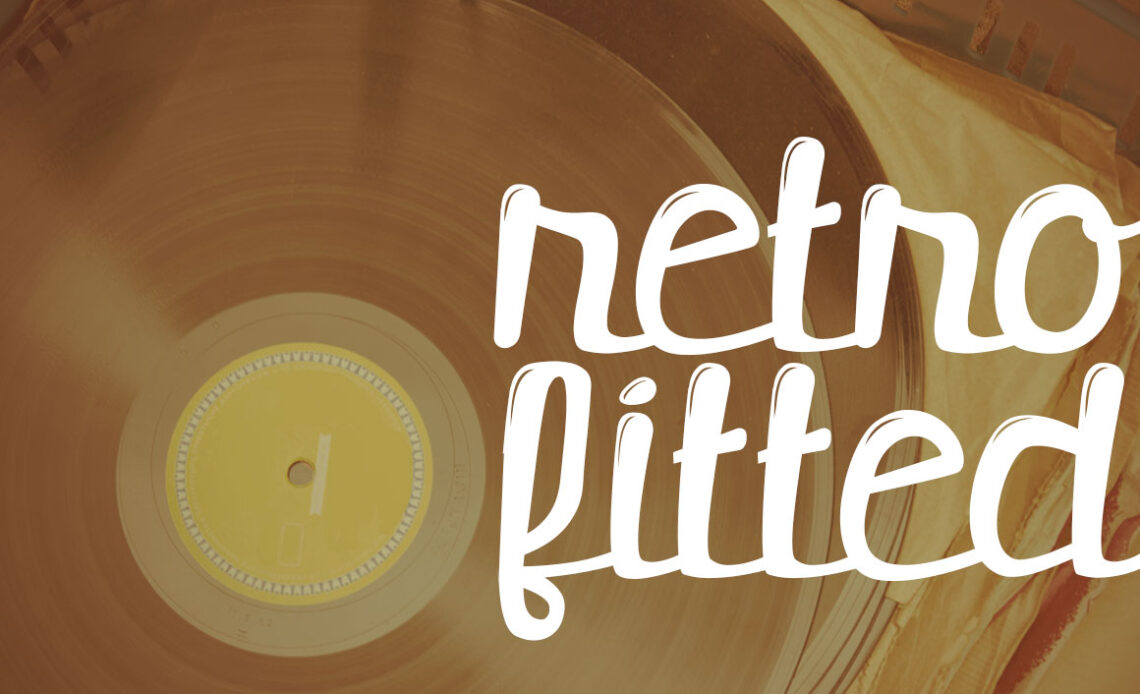
**Introducing Retrofitted: A Delightful, Retro-Styled Font for Playful Designs**
Prepare to step back in time with Retrofitted, a captivating display font that effortlessly captures the whimsical charm of the retro era. Its playful, rounded curves exude an aura of nostalgia, making it the perfect choice for designers seeking to add a touch of vintage flair to their creations.
With each character carefully crafted by the talented Brittany Murphy Design, Retrofitted stands out as a masterpiece of retro typography. Its playful personality shines through in every stroke, inviting you to embark on a creative journey filled with joy and whimsy.
Whether you're designing eye-catching posters, crafting playful packaging, or creating stunning social media graphics, Retrofitted is your go-to font for injecting a dose of retro charm into your projects. Its versatility knows no bounds, making it ideal for a wide range of design endeavors.
Experience the delight of creating designs that evoke a sense of cheerful nostalgia. With Retrofitted by your side, you'll have the creative power to transport your audience back to a time of carefree fun and playful retro style.
**Why Choose Retrofitted?**
* **A Burst of Retro Charm:** Retrofitted's playful, rounded curves are reminiscent of the golden age of retro design, adding an instant touch of vintage flair to your creations.
* **Perfect for Playful Designs:** Its whimsical personality makes it an exceptional choice for designs that exude a sense of joy, whimsy, and lightheartedness.
* **Versatile and Adaptable:** Retrofitted is a versatile display font, suitable for a wide range of design projects, from posters and packaging to social media graphics and more.
* **Crafted with Care:** Each character in Retrofitted has been meticulously designed by the talented Brittany Murphy Design, ensuring the highest level of quality and attention to detail.
* **Nostalgic Appeal:** Retrofitted has the power to evoke a sense of cheerful nostalgia, transporting your audience back to a time of carefree retro style.